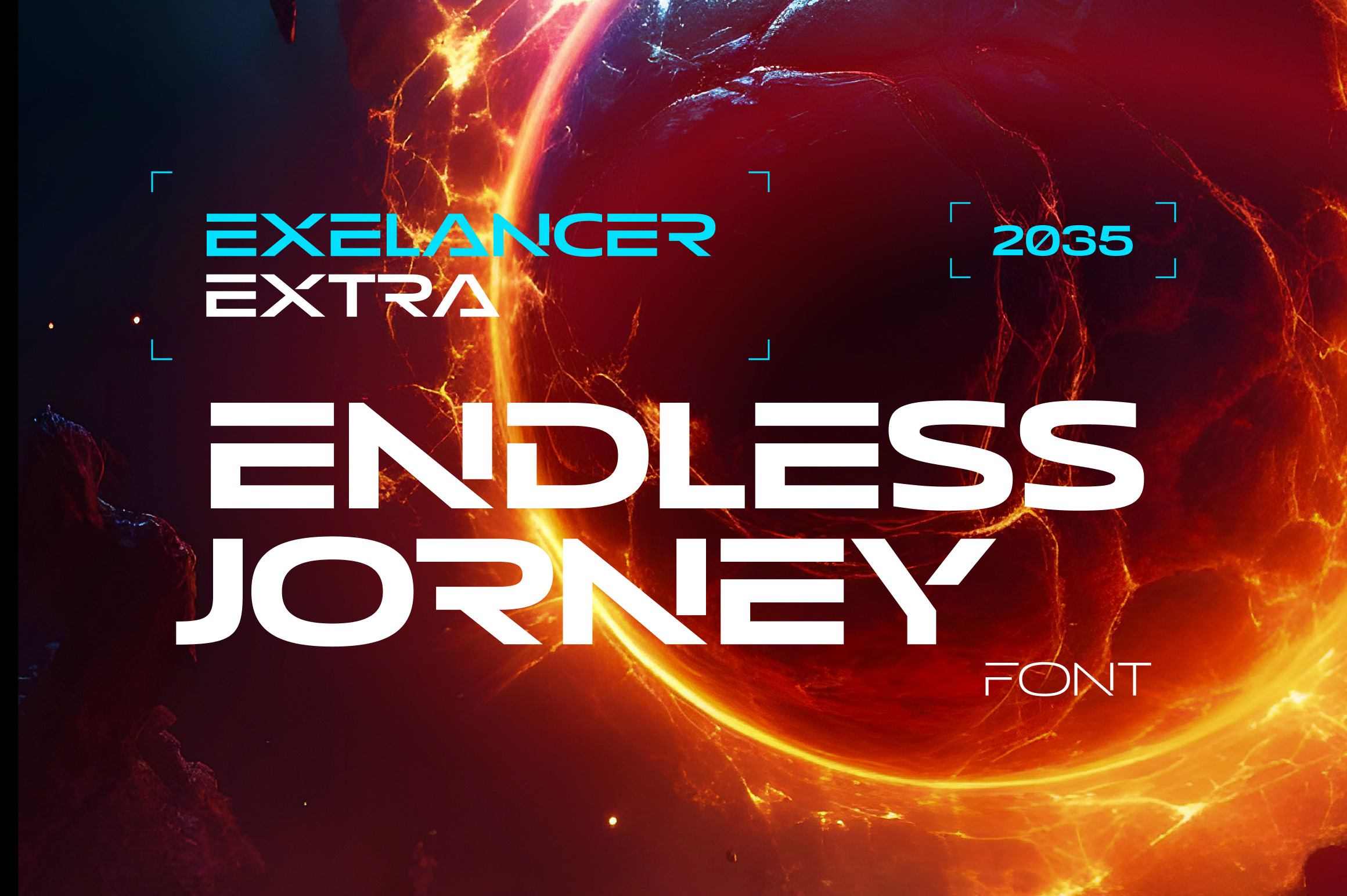
Stellar font family Exelancer Extra
Legendary Exelancer font extending
Introducing the cutting-edge Excelancer Extra font, a modern masterpiece born from the rich heritage of classic sci-fi typography. Our inspiration? The boundless allure of outer space. And bestseller — the Excelancer font!
Excelancer Extra font is a harmonious blend of sleek, contemporary design, drawing from the timeless elegance of its predecessor. What sets Excelancer Extra apart is its captivating fusion of bold, ornate uppercase characters with meticulously crafted lowercase letters that maintain exceptional readability, even in extensive text. With Excelancer, you possess an all-encompassing font toolkit, designed to tackle every facet of forward-looking design.
But that's not all. This font isn't just for intergalactic tales; it's also a striking choice for anything related to technology, innovation, progress, and even the world of sports. In essence, Excelancer embodies the pure essence of the future—an infusion of dynamism that knows no bounds!
The font contains 10 weights that will help you choose the optimal size for different cases.
Font supports Latin and most European languages.